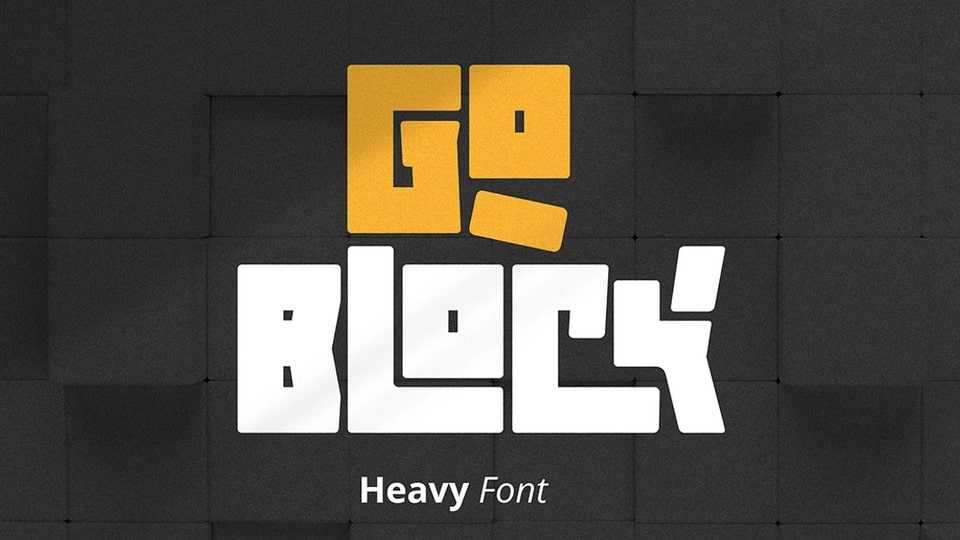
Download Goblock font, a powerhouse of typography designed to make your brand stand out with unparalleled strength and presence. This heavy and extra-bold font is meticulously crafted to elevate your logo to new heights.